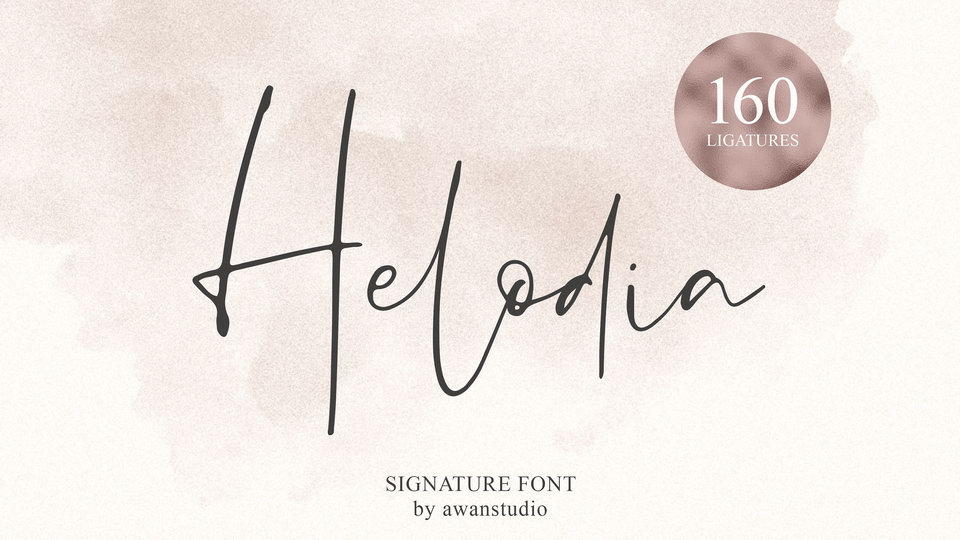
Download Helodia- a stunning signature font. It allows you to create stunning and easy hand-lettering in an instant. This font comes with 160 ligatures to make your design unique.
Designer: Awan Studio